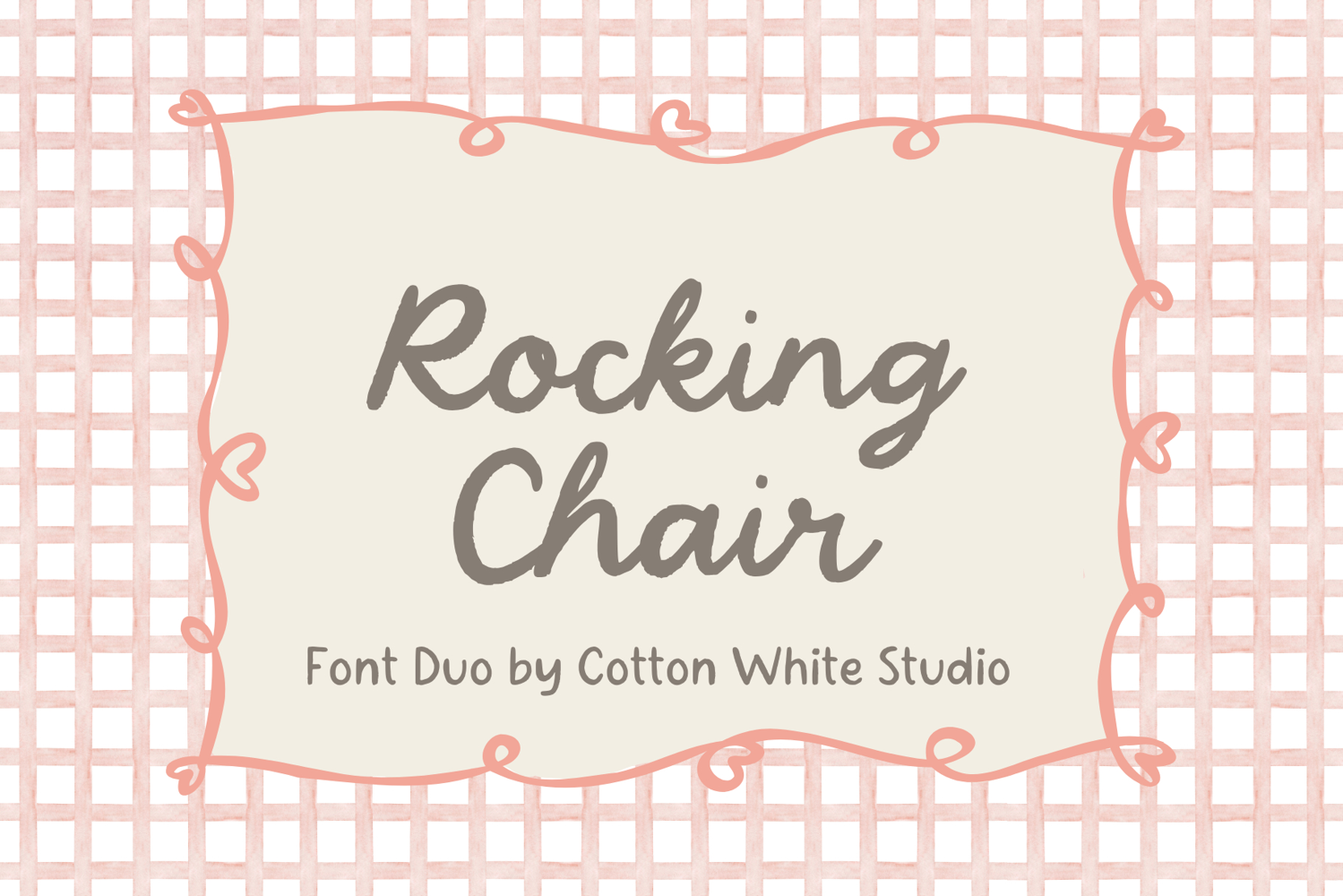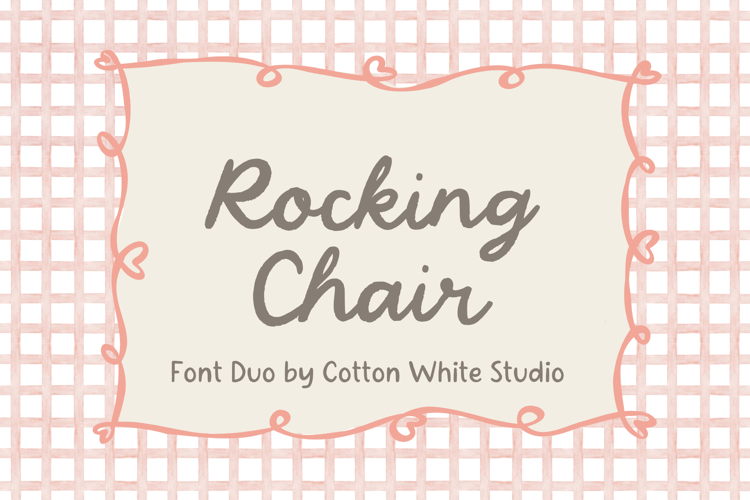
Rocking Chair
RockingChairCWS
RockingChairScript
Rocking Chair is a handwritten font duo that brings comfort, charm, and a touch of old soul to your designs. With a flowing script and a relaxed, hand-drawn print companion, this pair feels like a note passed between generations — soft, imperfect, and full of personality. Perfect for cozy branding, heartfelt quotes, invitations, or anything that calls for a little warmth, Rocking Chair invites your words to slow down and stay awhile.